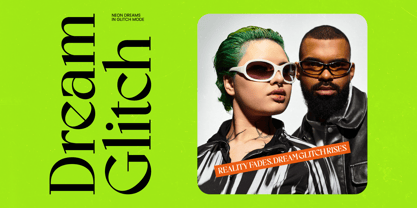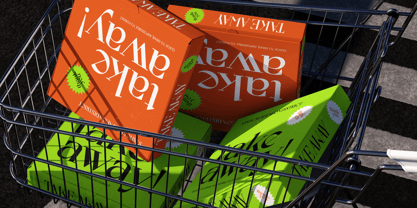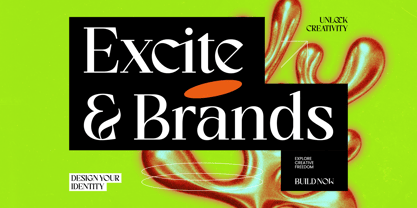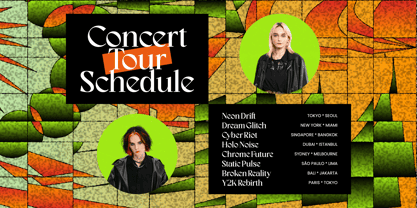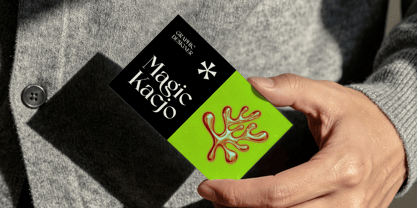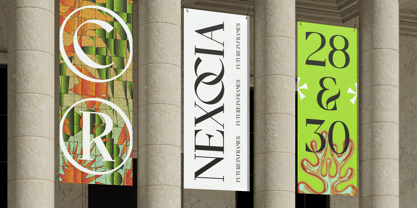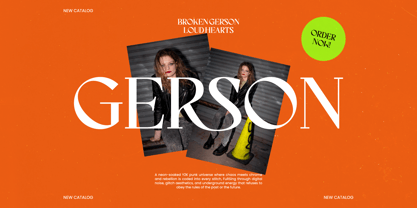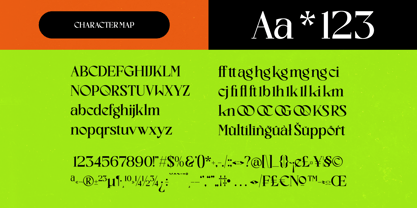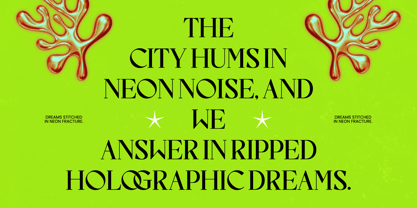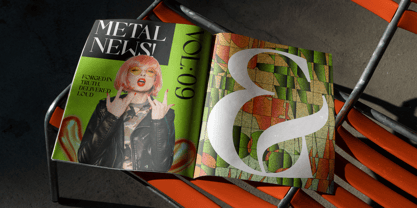
Excite Brands
The Excite Brands Font Family was designed by Heru Utama Putra and published by Timelesstype Studio. Excite Brands contains 2 styles and family package options. More about this family
Elevate your visual identity with a typeface that embodies sophisticated luxury and modern refinement. Excite Brands - Modern Editorial Serif is a masterclass in high-contrast typography, blending classic serif structures with a contemporary, high-fashion aesthetic. Its sharp terminals and elegant silhouettes provide a distinctive look that commands attention on the page or screen, ensuring your brand stands out with an undeniable sense of prestige and authority.